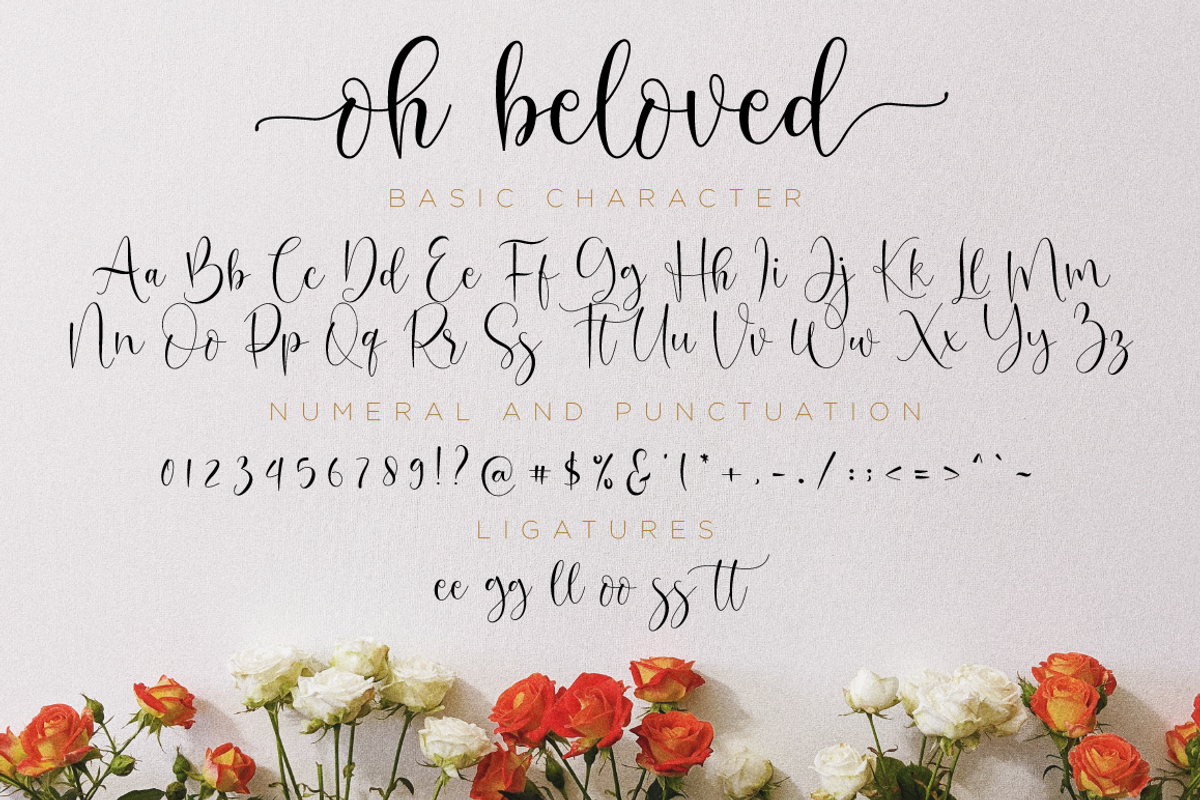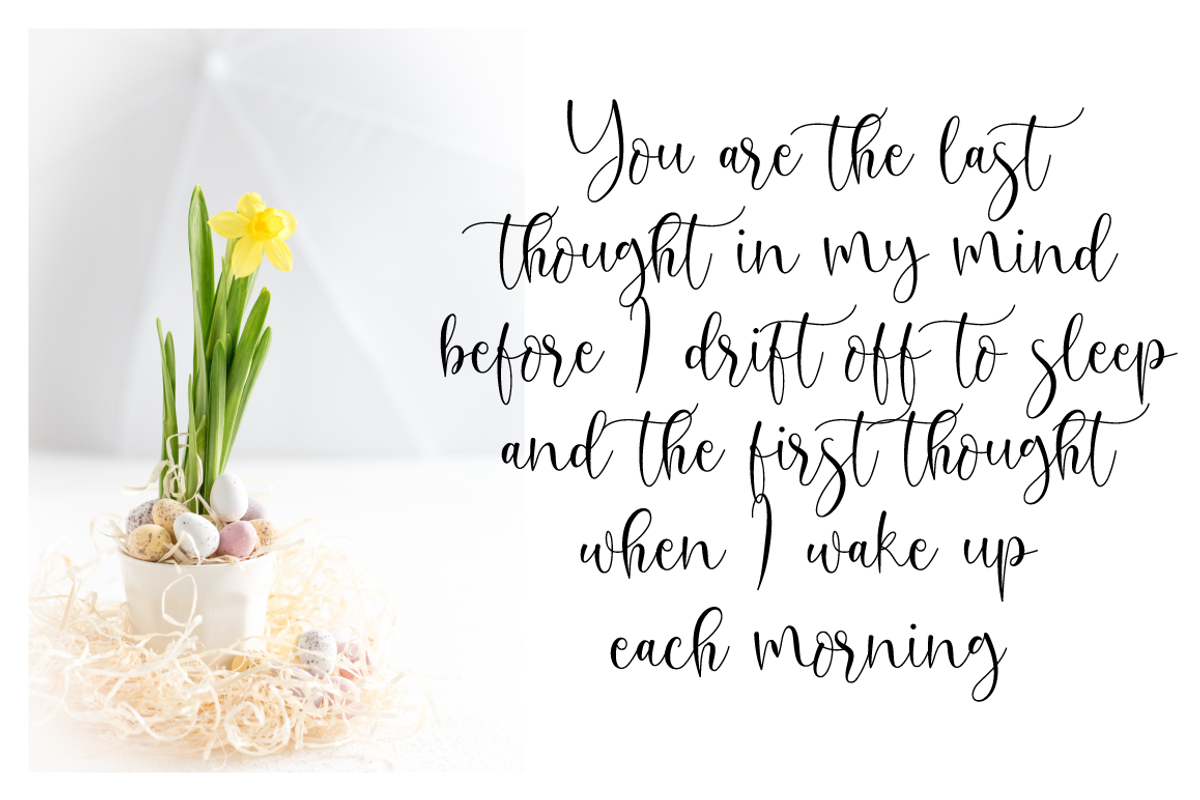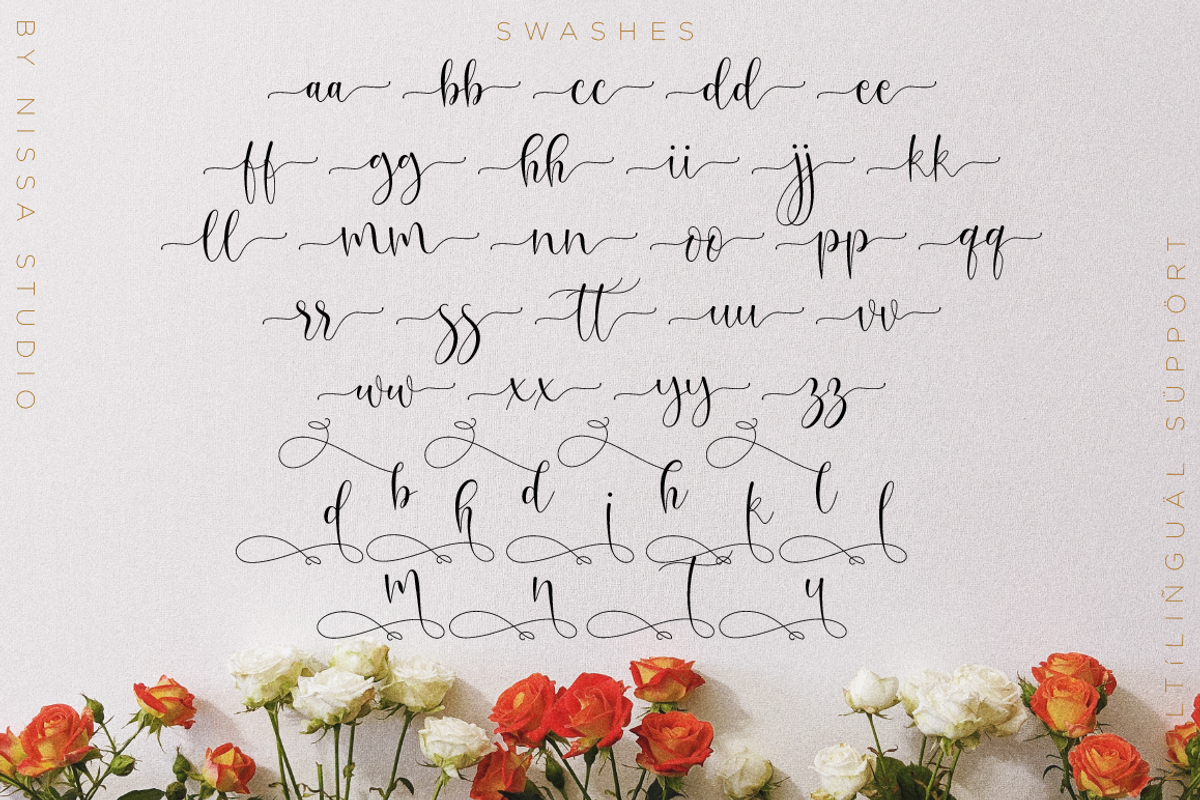
Oh Beloved Script
Oh Beloved is a beautiful script font with a classy, elegant, and modern look. It will add a personal touch to any design project!
Each Font Has:
- Modern Handwritten Font
- Beautiful Swash (Ending tail)
- Beautiful Titling (Beginning tail)
- Special Ligatures